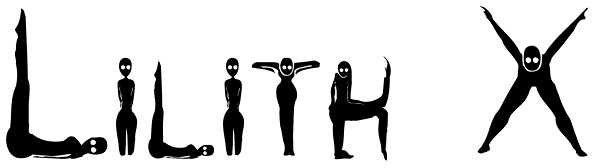
Lilith X
Hand drawn shadow entities from the dark corners of Dawnland. Lilith X is ideal for: Initial characters - give your text a unparalleled facelift! Headlines - create a unique look for your posters, event graphics, book covers & music/media/game...